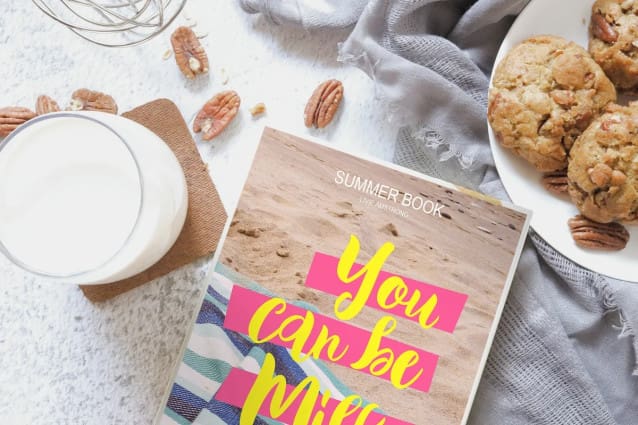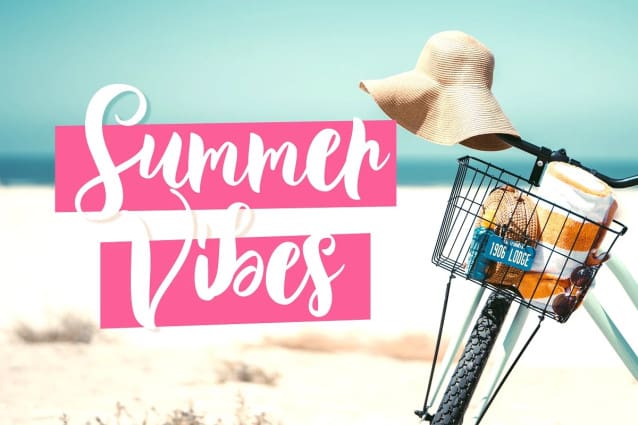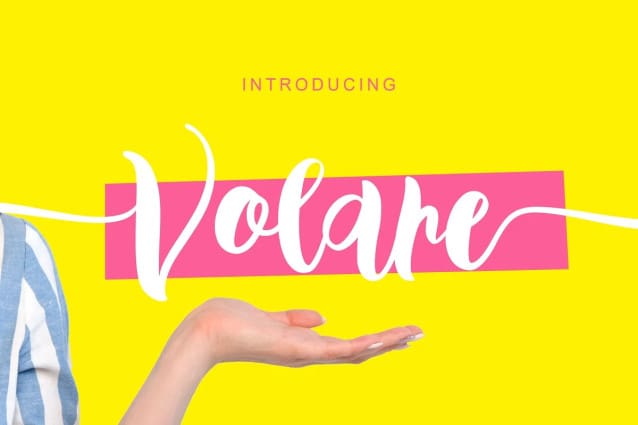
Volare Script Font
Volare Script Font, latest style letters are perfect for wall displays, social media post logos, advertisements, product packaging, product designs, labels, photography, watermarks, invitations, stationery, and any project that turn a creative idea into a true piece of art.